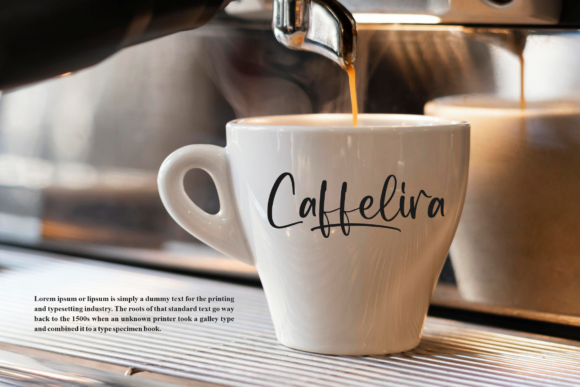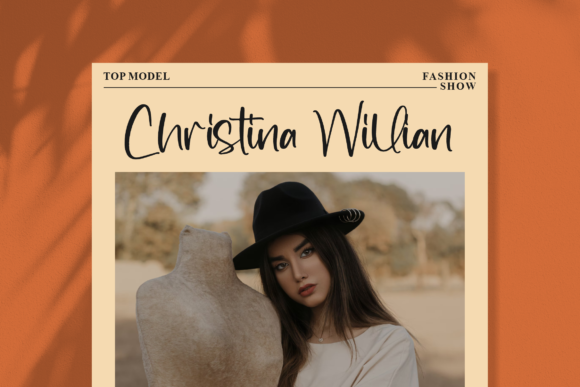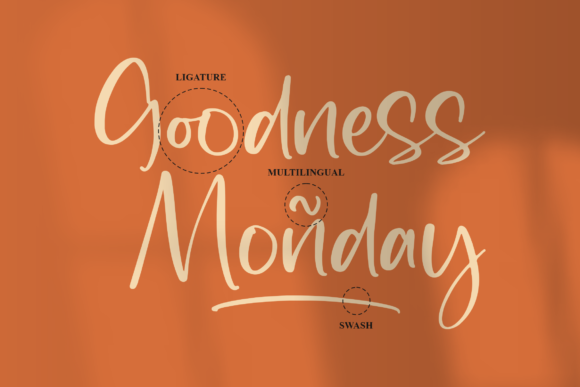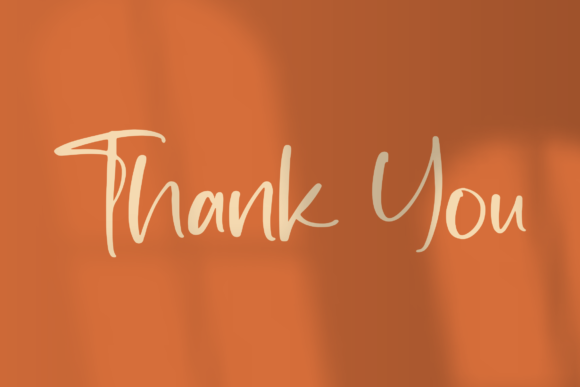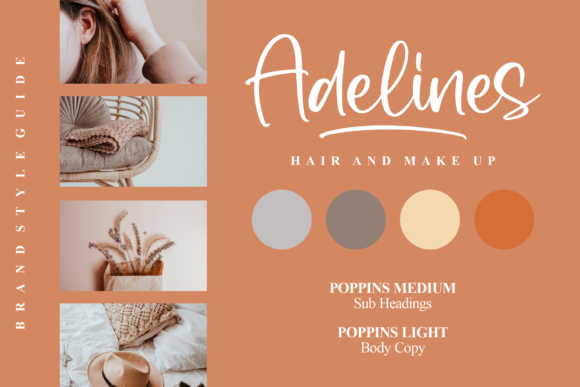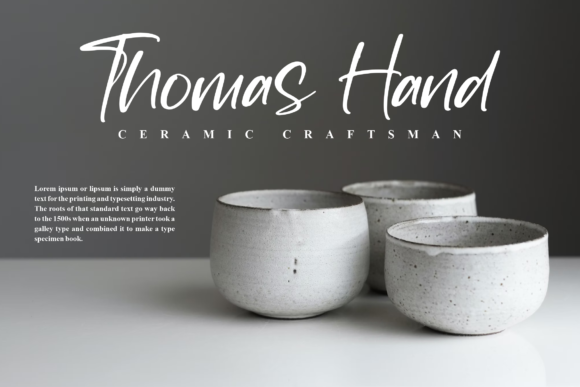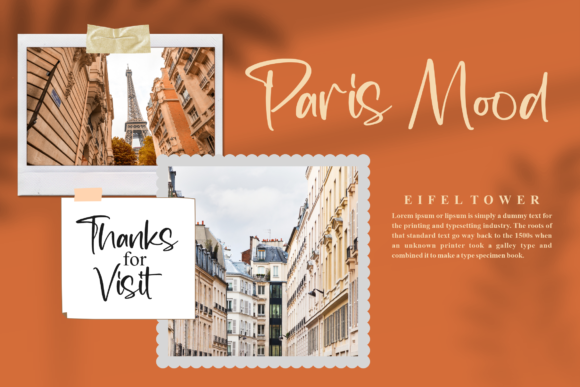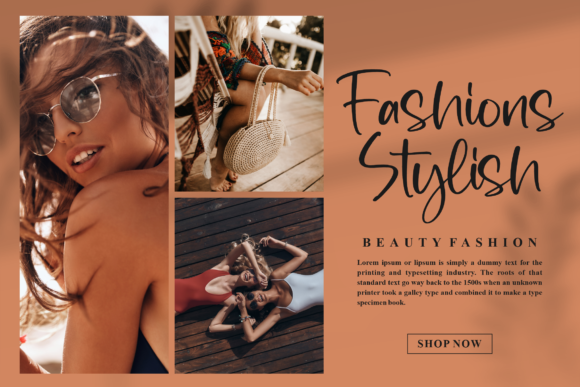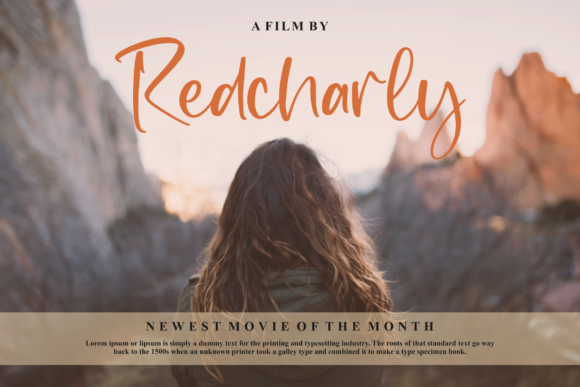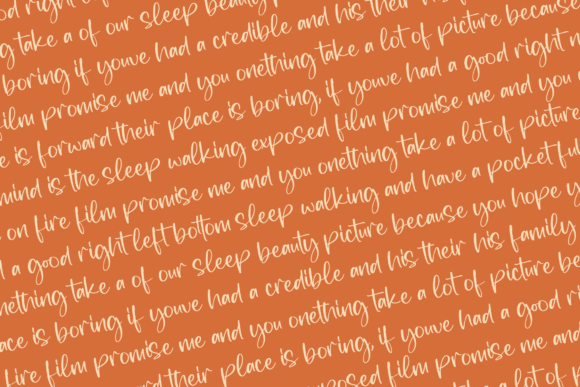
Kalibetta Font
About Kalibetta Font
Introducing “Kalibetta,” a superb handwritten font designed to make your work stand out with its elegant and curvy lines. Beyond just a typeface, Kalibetta is a carefully crafted design element that adds a touch of sophistication to your creative projects. Whether you’re working on product packaging, a branding project, magazine covers, social media graphics, wedding materials, or simply expressing words above a background, Kalibetta is the ideal choice.
The elegance and curvature of Kalibetta shine through its design, where each character exudes a refined and stylish quality. Imagine using this font to enhance product packaging, where its graceful lines contribute to a sophisticated presentation. Envision it in a branding project, adding a personal and elegant touch to your brand identity. Whether applied to magazine covers or social media visuals, Kalibetta becomes a versatile tool for creating eye-catching and memorable designs.
Kalibetta’s elegant and curvy lines give it a timeless and classic aesthetic, making it well-suited for various design contexts. Its versatility shines in different creative projects, adapting seamlessly to deliver a visual impact that is both elegant and memorable.
Choose Kalibetta as the font that elevates your work with its superb handwritten style. Let its elegant and curvy lines add a touch of sophistication to your product packaging, branding materials, and more. Allow Kalibetta to be the creative element that makes your projects stand out, creating a visual impact that is both elegant and memorable.